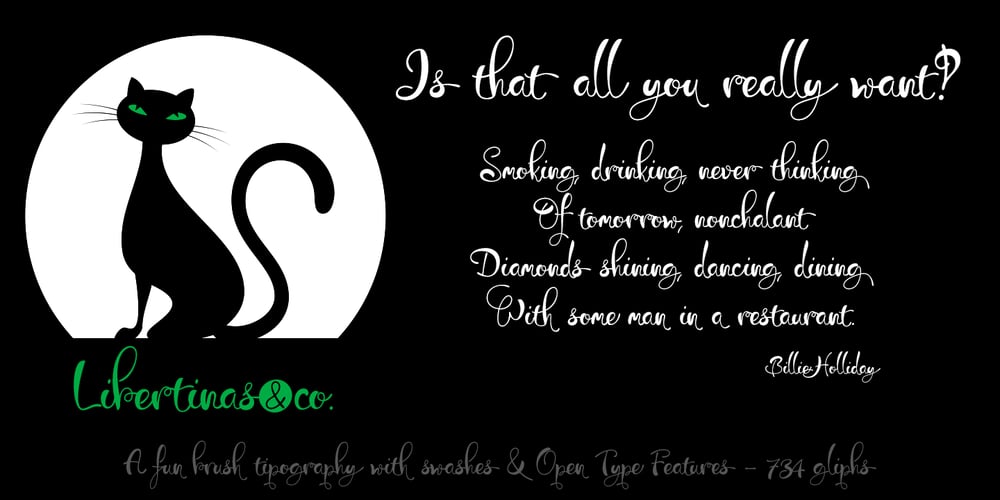
Libertinas & co Font Family was designed by Fernando Haro and published by deFharo. Libertinas & co contains 1 styles and family package options. Libertinas & co. is a handwritten typeface, with a casual, elegant and sensual style, with many possibilities to compose different titles, flyers, publications or typographic posters for example. The font has an extra set of capital letters and another one of decorative lowercase for word end, also 3 stylistic set with more alternative letters and many other Open Type functions. Includes the Bitcoin symbol. The Commercial version includes – 734 glyphs. Latin Extended-A • OTF & TTF – Libertinas & co. can be used unlimited for both Commercial and Personal projects. – The download file includes a PDF with the specimen sheet of typography. – OpenType features compatible with: Photoshop, Illustrator, QuarkXpress, Indesign. – OpenType Functions: Scientific Inferiors, Swash, Terminal Forms, Titling alternates, Extended Fractions, Inferiors, All Alternates, Superiors, Contextual Ligatures, Denominators, Contextual Alternates, Contextual Swash, Discretionary Ligatures, Capital Spacing, Superscript, Additional languages, Superior letters, Oldstyle Figures, Historical Forms, Historical Ligatures, Kerning, Localized Forms, Numbers Small Caps, Numerators, Ordinals, Subscript, Ornaments, Slashed Zero, Standard Ligatures, Stylistic Alternates, Stylistic Set, Fractions. – Bitcoin symbol (ligatures): b#